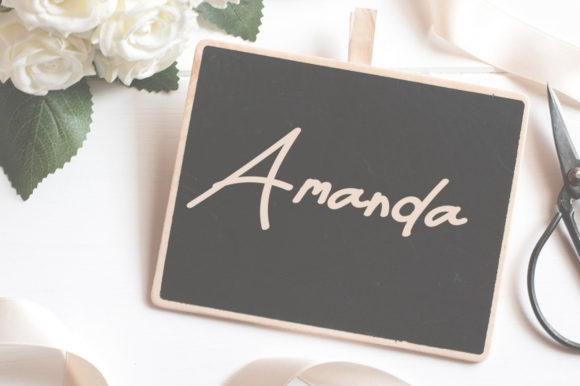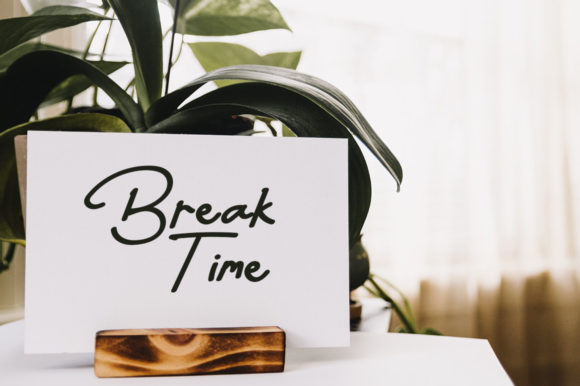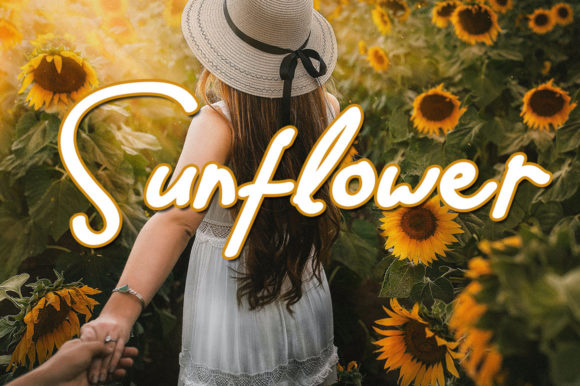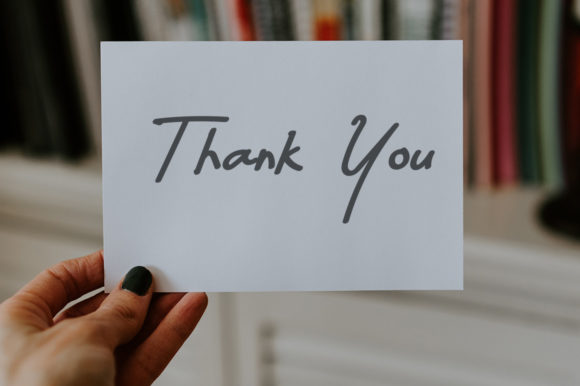
The Perfect Sip: Discovering the Fresh Drink Font
I’ll never forget the moment I stumbled upon the Fresh Drink font. I was working on a branding project for a trendy new cafe, and I was struggling to find the right font to capture their playful, yet sophisticated vibe. The client wanted something that would make their customers feel like they’re sipping on a cold glass of lemonade on a hot summer day. That’s when I discovered Fresh Drink – a sweet and friendly handwritten font that instantly transported me to a world of refreshing possibilities.
So, what makes Fresh Drink so special? Here are a few things that I absolutely love:
- ✨ Unique and natural style: Fresh Drink has a one-of-a-kind, handcrafted feel that sets it apart from other fonts.
- ✅ Versatility: This font can be used for a wide range of designs, from branding and packaging to social media graphics and more.
- 💫 Easy to read: Despite its playful nature, Fresh Drink is surprisingly easy to read, even at smaller font sizes.
Of course, no font is perfect, and Fresh Drink does have a few quirks:
- 🤔 Limited formal applications: While Fresh Drink is amazing for casual, creative projects, it may not be the best fit for more formal or corporate designs.
- ⚠️ Some letters may require adjustment: Depending on the word or phrase, some letters may need to be adjusted for optimal spacing and readability.
One of the best things about Fresh Drink is its OpenType features and glyphs. These allow you to add extra personality to your text, like:
- Stylistic alternates: Swap out letters for alternate versions with slightly different styles.
- Glyphs: Access special characters, like ligatures or ornaments.
The Story Behind Fresh Drink
Fresh Drink was designed with one goal in mind: to create a font that’s as refreshing as a cold drink on a hot summer day. The designer, [imaginary designer name], drew inspiration from handwritten signs, street art, and the joy of sipping a favorite beverage. The result is a font that’s both playful and elegant – perfect for designs that need a little extra personality.